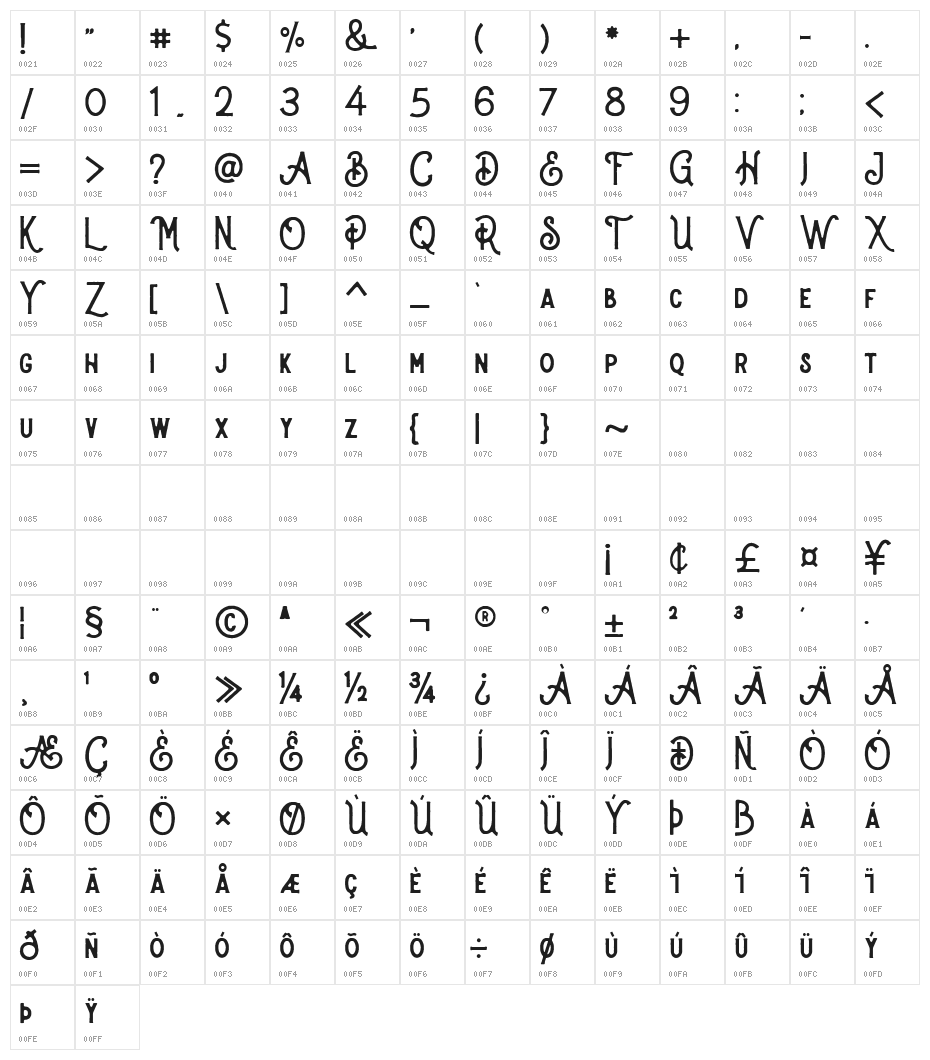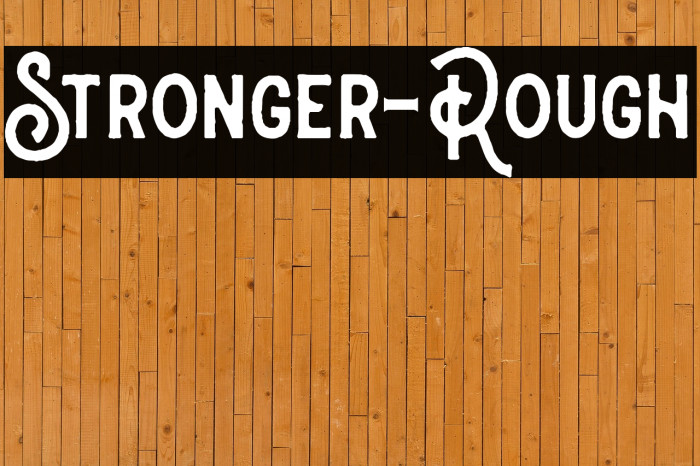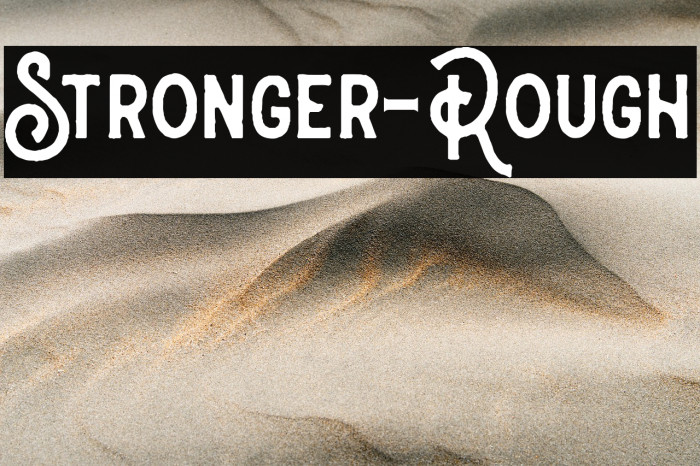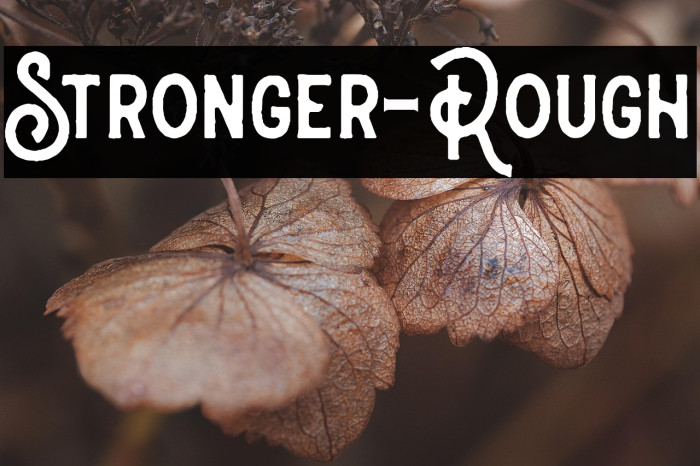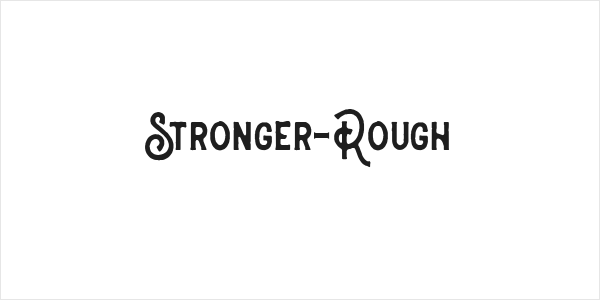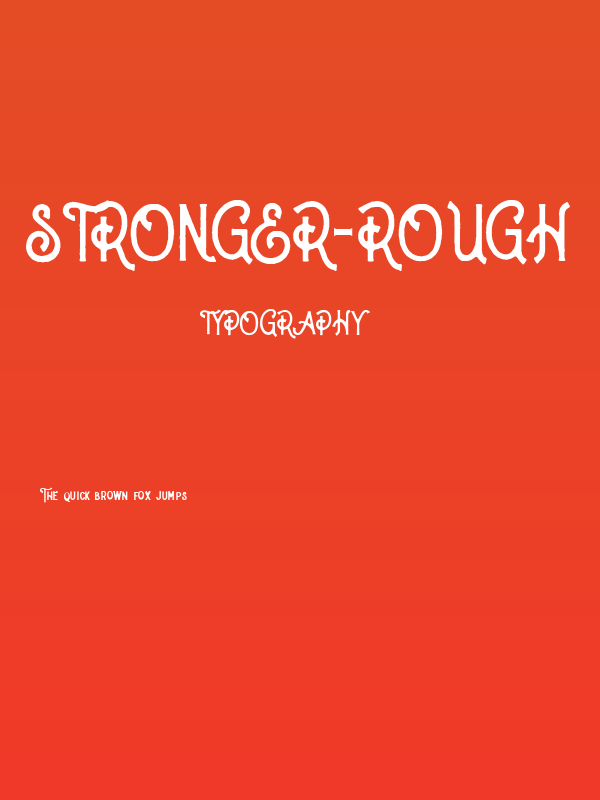
Stronger-Rough Font
Stronger-Rough Description
This font exhibits a bold and rugged style, characterized by its rough, textured edges that give it a hand-drawn appearance. The uppercase letters are prominent and sturdy, with a slightly uneven baseline that adds to its rustic charm. The lowercase letters maintain a consistent style, complementing the uppercase with their own unique flair. Numbers and special characters follow the same rough aesthetic, ensuring a cohesive look across all text elements. This font is ideal for projects that require a strong, impactful visual presence, such as posters, headlines, and branding materials.
| Overall Style | Rustic, Hand-drawn |
| Use Case | Headlines, Posters, Branding |
| Proposed Projects | Ideal for posters, headlines, branding, and any project needing a strong visual impact. |